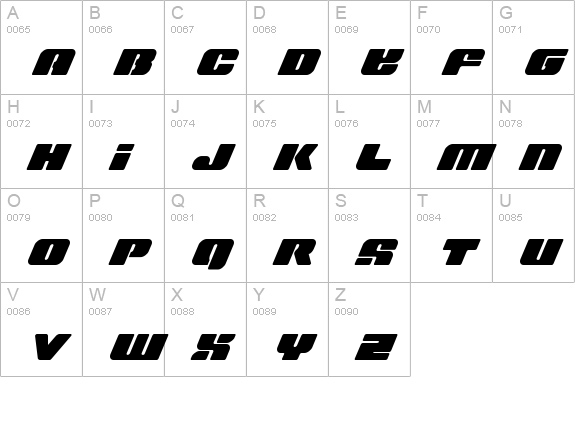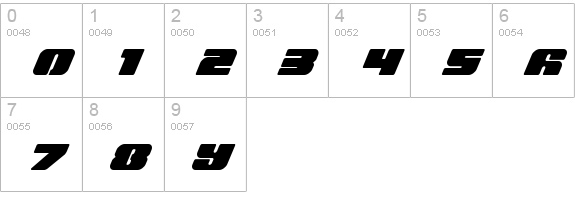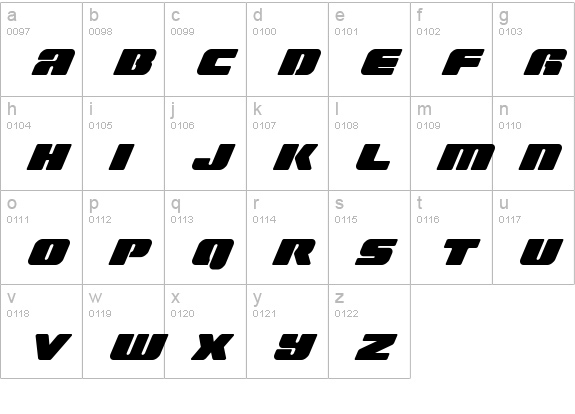
Capricus Font Details
Capricus is a donationware font in the Modern > Sci-Fi category, designed by Iconian. It has been downloaded 118 times and is available for Windows, Mac and Linux.
Introducing Capricus font, a modern and elegant typeface that brings a touch of sophistication to any design project. This versatile font is perfect for a wide range of applications, from branding and advertising to packaging and web design. With its clean lines and stylish curves, Capricus is sure to make a statement and capture attention.
Whether you're working on a logo, poster, website, or any other creative project, Capricus font is a versatile and eye-catching choice that will elevate your design to the next level. Download it for free today and unleash your creativity with Capricus font.